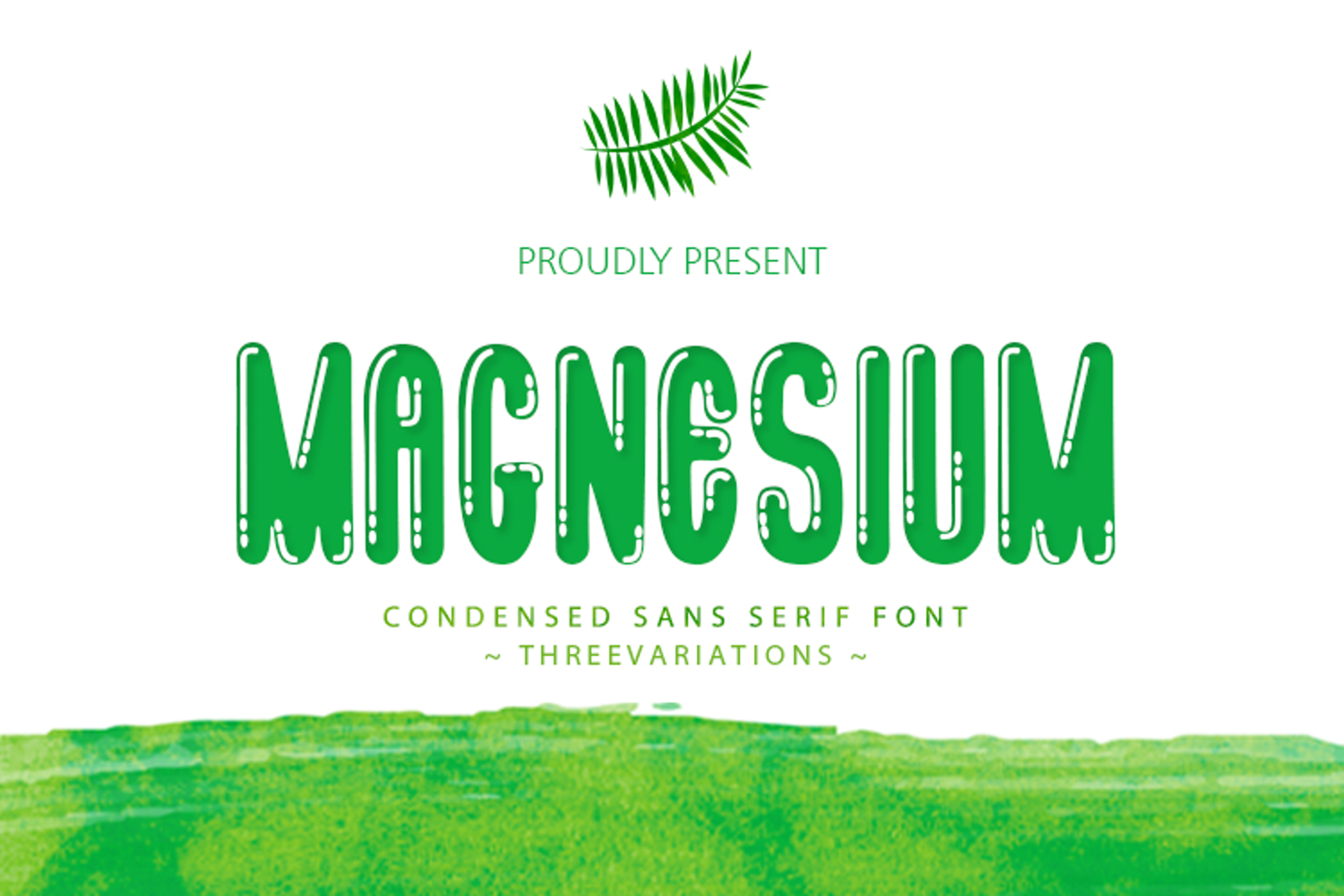
MAGNESIUM
MAGNESIUM REGULAR
MAGNESIUM LIGHT
MAGNESIUM
MAGNESIUM is a font with three classy and unique variations for branding and logo design.
Based on our experience as graphic designers working for many companies, we are often asked to design logos with a unique style yet elegant shape. So, we discussed and created this font to bring that idea to life. This font is perfect for branding and logo design. You'll get a classy, ​​elegant, and, of course, unique logo with this font.